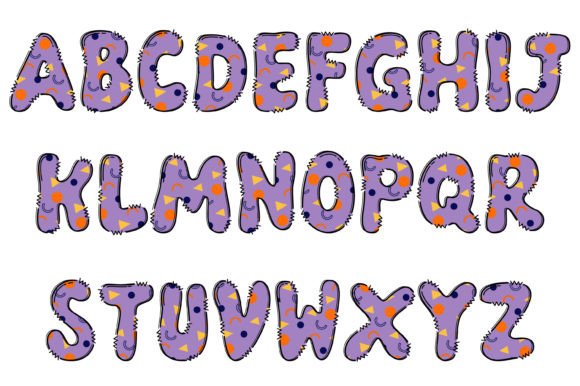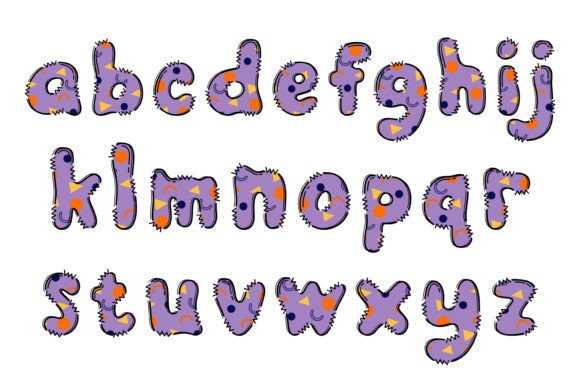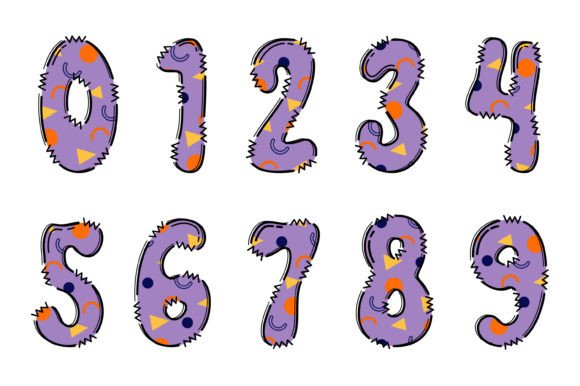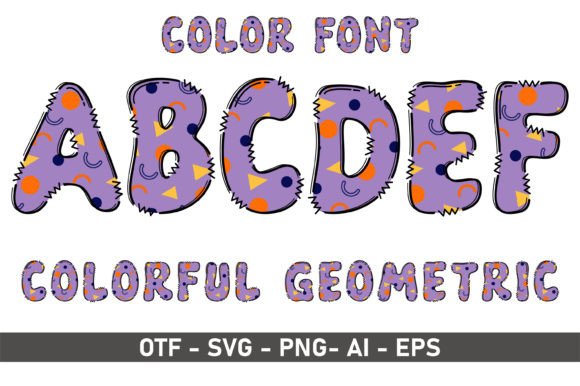
Exploring the World of Colorful Geometric Fonts
When it comes to adding a touch of personality and flair to your designs, few elements can make as big of an impact as a Colorful Geometric Font. These vibrant and dynamic fonts are perfect for designs that aim to convey a playful or artistic feel, making them a popular choice for a wide range of projects, from children’s books and posters to invitations, greeting cards, and more.
The Versatility of Colorful Geometric Fonts
One of the key benefits of Colorful Geometric Fonts is their versatility. They can be used in a variety of contexts to add a pop of color and visual interest. For example, in children’s books, these fonts are often used to create engaging and interactive reading experiences. The whimsical and colorful nature of these fonts helps to capture young readers’ attention and make the reading experience more enjoyable.
In addition to their use in children’s literature, Colorful Geometric Fonts are also commonly used in:
- Posters and flyers: Add a bold and eye-catching element to your promotional materials with a colorful geometric font.
- Invitations and greeting cards: Make your invitations and cards stand out with a unique and playful font.
- Social media graphics: Use colorful geometric fonts to add visual interest to your social media posts and stories.
Here are some expert tips for designers and crafters looking to get the most out of their Colorful Geometric Fonts:
- Experiment with different colors and combinations to find the perfect look for your project.
- Use the font to add visual interest to your designs, but be mindful of readability.
- Consider pairing the Colorful Geometric Font with a simpler font for added contrast.
- Don’t be afraid to get creative and try new things – the playful nature of these fonts encourages experimentation!
Colorful Geometric Fonts are a powerful tool for designers and crafters looking to add a touch of personality and whimsy to their projects. With their versatility, playfulness, and visual appeal, it’s no wonder these fonts are a popular choice for a wide range of designs. By understanding the technical considerations and following expert tips, you can unlock the full potential of these amazing fonts and take your designs to the next level.